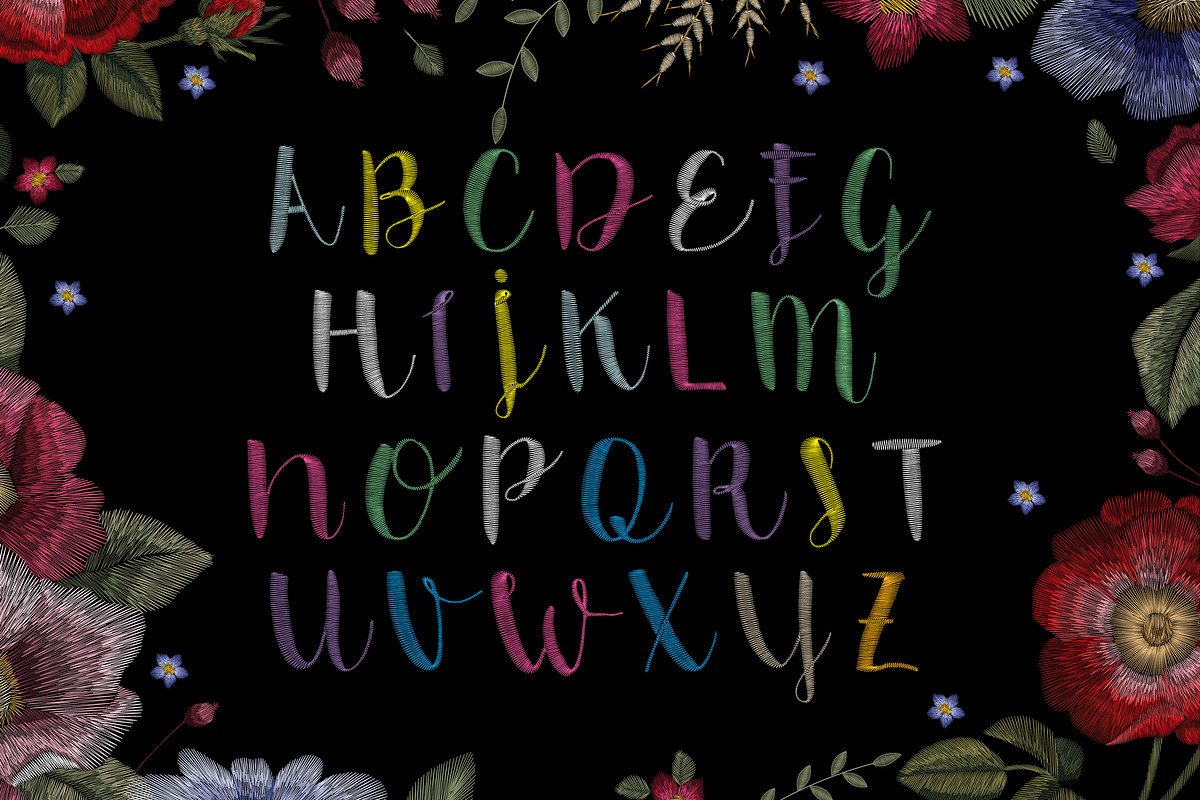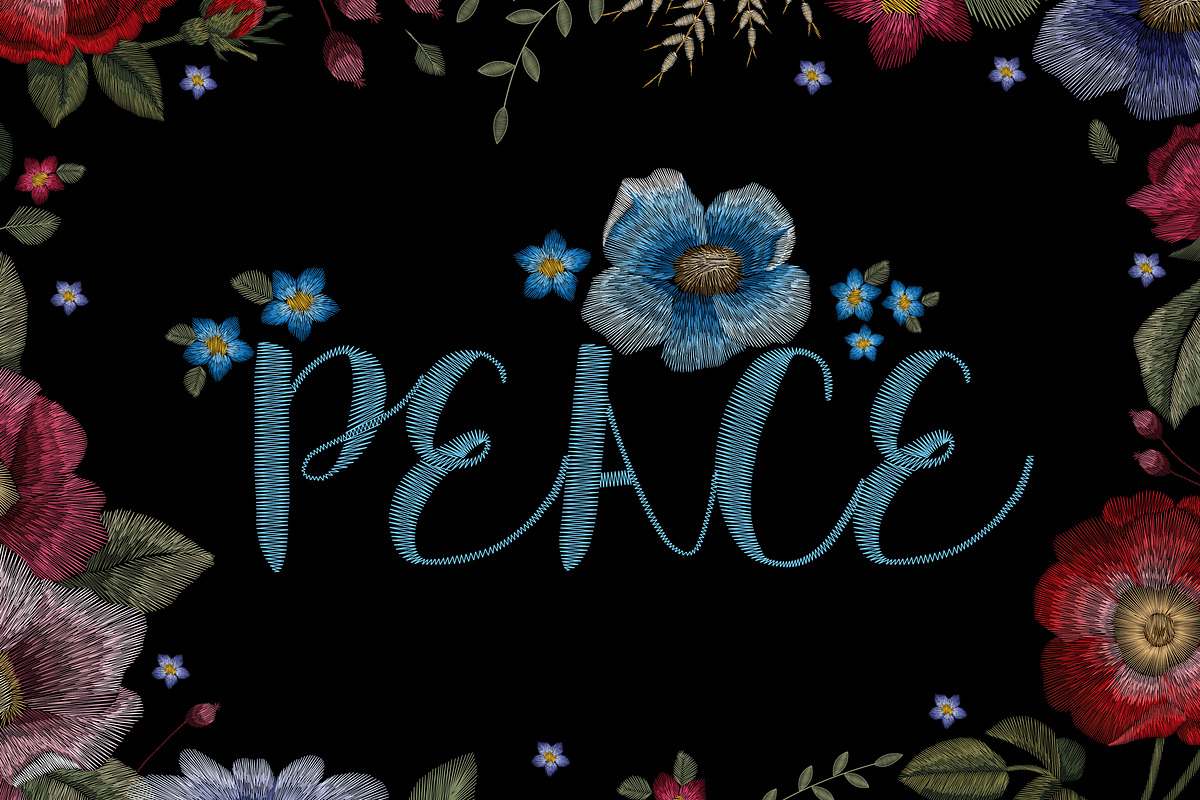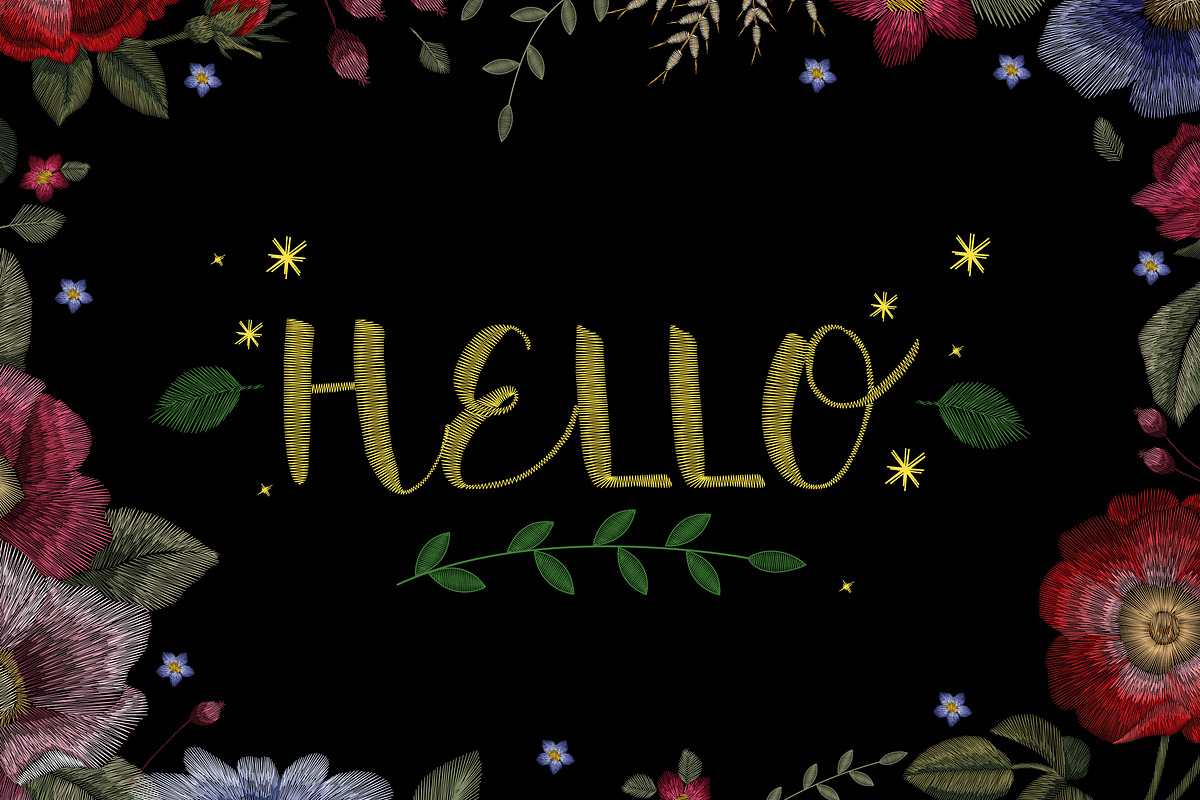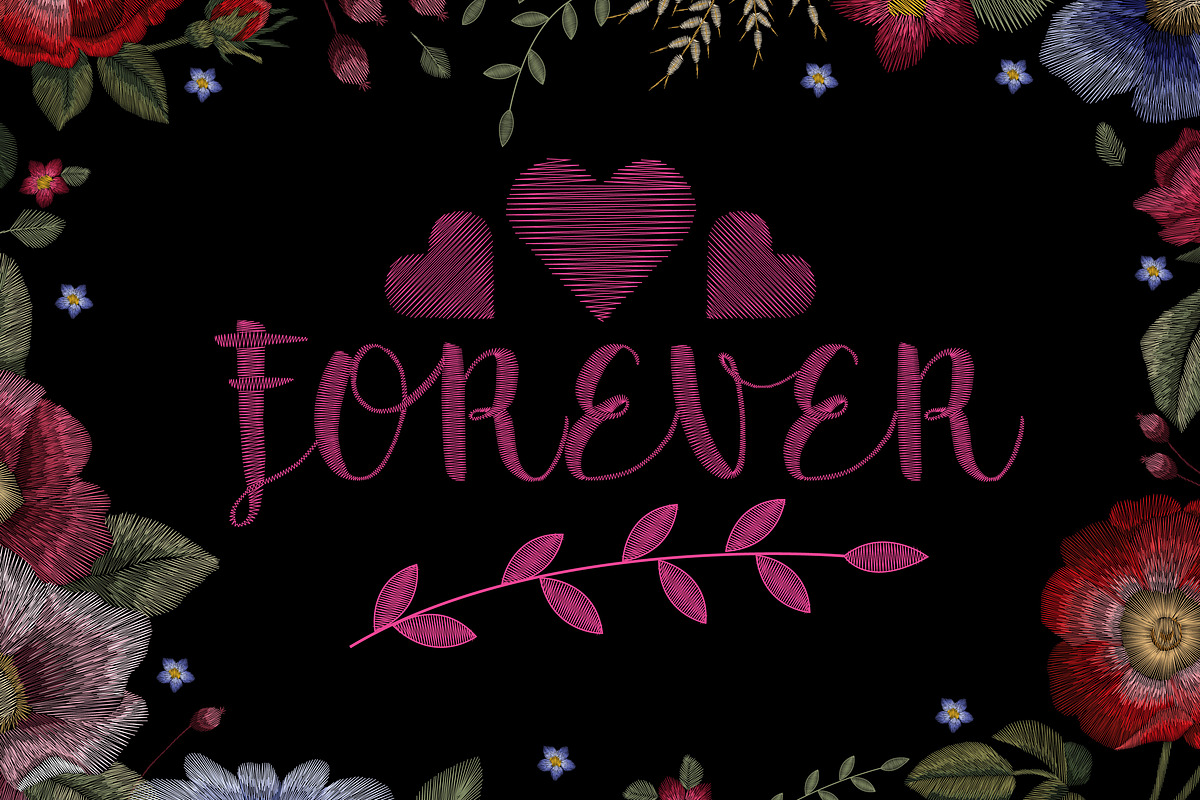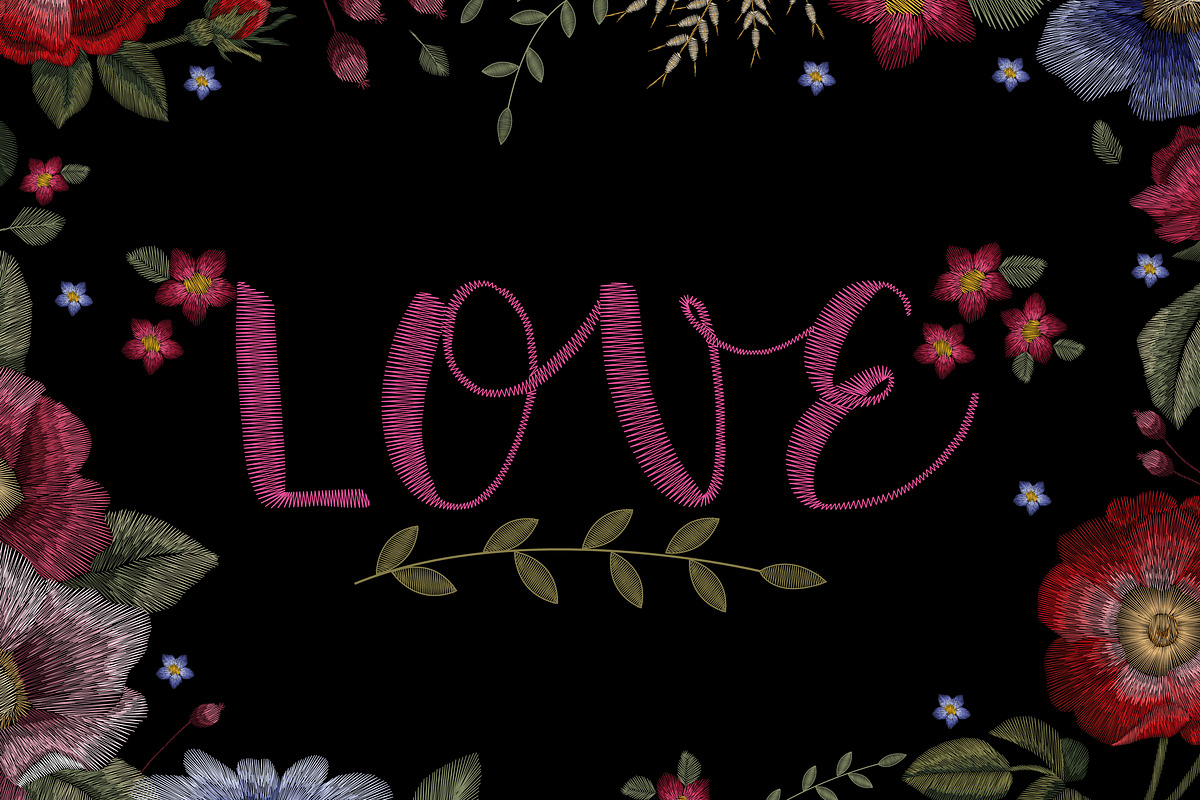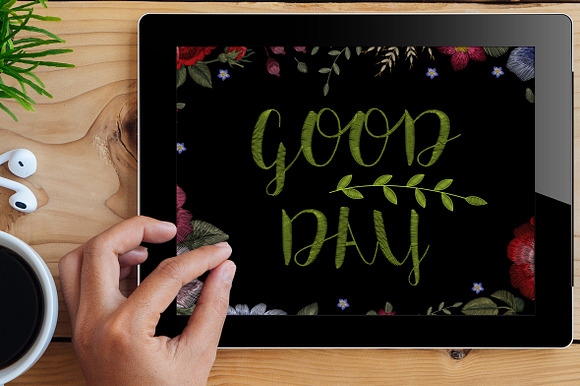
font. embroidery
The color is fully consistent as shown in the picture
font. embroidery by Chikovnaya fits naturally into Branding, posters, packaging, typography.